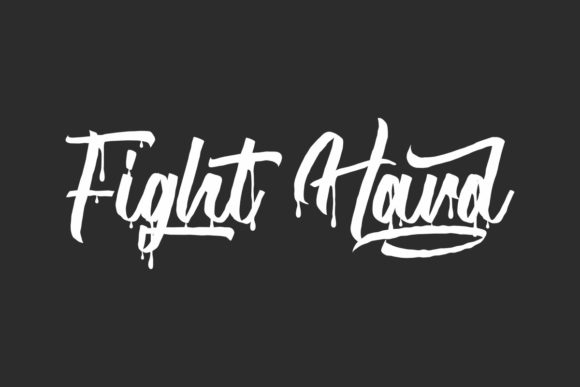
Behold, the Fight Hard font, a graffiti-inspired masterpiece that oozes urban chic and rebellious allure. Crafted with meticulous attention to detail, this display font exudes a captivating aura of raw energy and edgy sophistication. Designed by the visionary minds at Vintype, Fight Hard is a game-changer in the world of typography.
Immerse yourself in the grittyé…力 and rebellious nature of Fight Hard, a font that speaks of individuality and nonconformity. Its dripping brush style adds a touch of mystery and intrigue, inviting you to explore the depths of your creativity. Whether you're a seasoned designer or a creative enthusiast, Fight Hard is the perfect canvas for your imagination.
Unleash your inner artist and let Fight Hard take center stage in your designs. Its unique style and captivating presence make it an ideal choice for logo branding, poster creation, product packaging, signage, titles, and much more. The possibilities are endless with this font by your side.
Embrace the power of Fight Hard and watch your designs transform into masterpieces that resonate with your audience. Its PUA encoding ensures effortless access to all glyphs and swashes, empowering you to craft designs that captivate and inspire.
Take your creativity to new heights with Fight Hard, the ultimate display font for those who dare to break the mold and leave an indelible mark on the world. Let your designs speak volumes and make a statement that will be remembered.